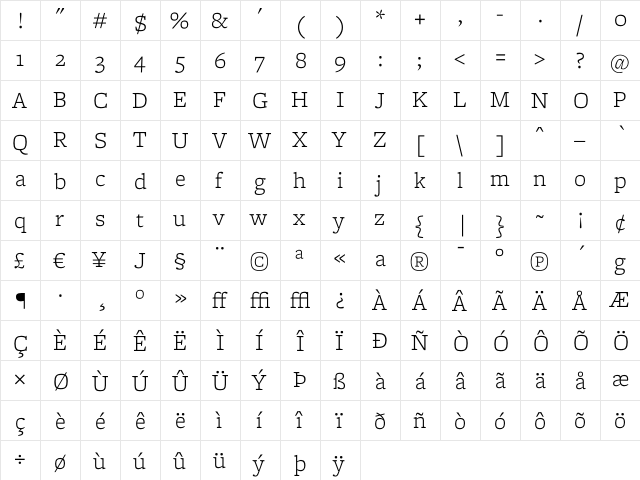
Freight Micro Light
| Foundry | Joshua Darden & Phil's Fonts, Inc |
| Designer | Joshua Darden |
Design Context for Freight Typeface
Freight offers clean, dependable letterforms without strong stylistic allegiance, making it a practical choice for designers who need flexibility. Its slender proportions lend an understated elegance to any composition.